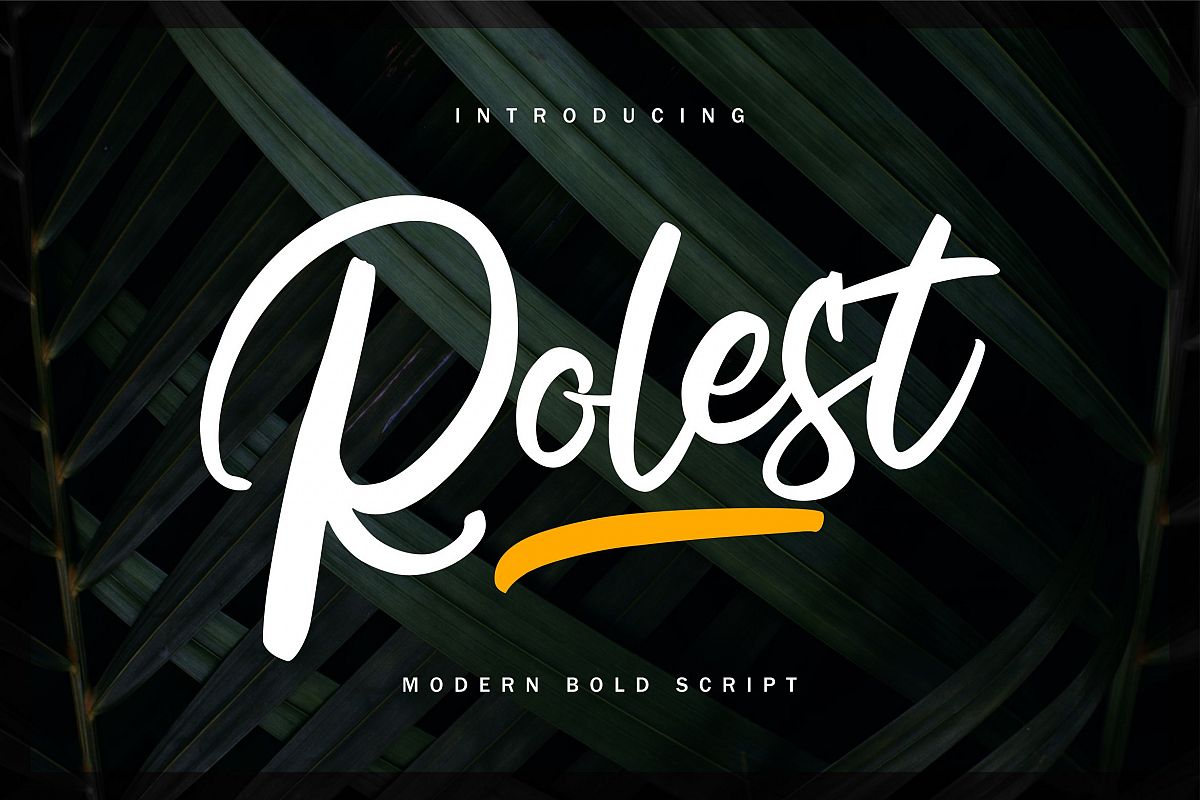
Rolest | Modern Bold Script Font
Rolest
**Rolest | Modern Bold Script Font** with a calligraphy style, So beautiful on invitation like greeting cards, branding materials, business cards, quotes, posters, and more!